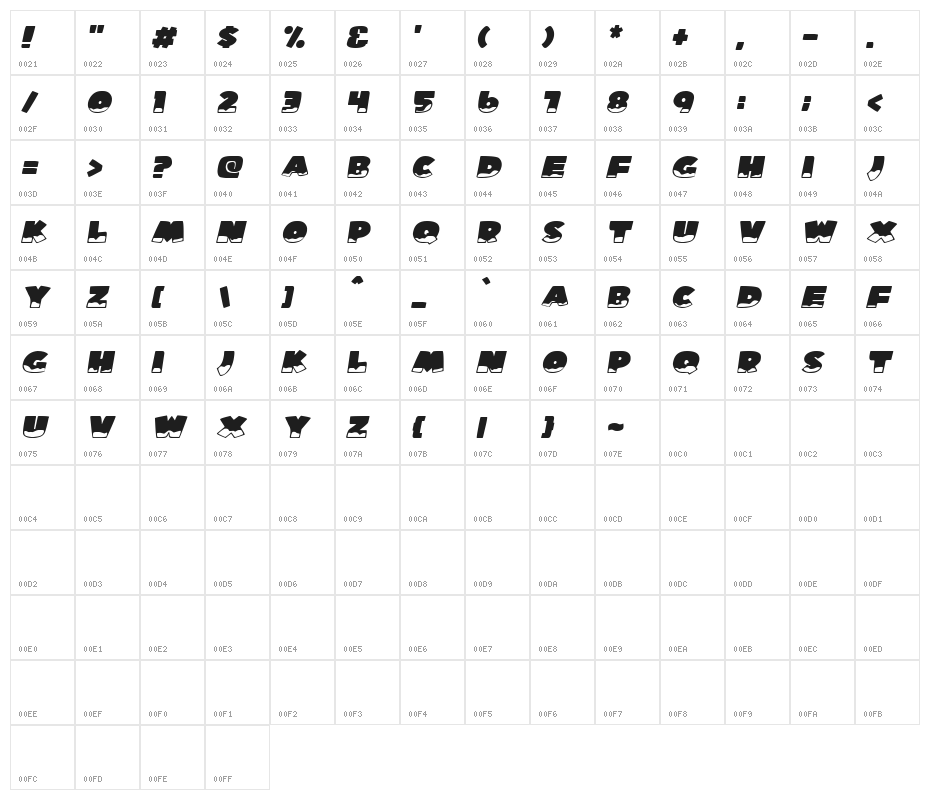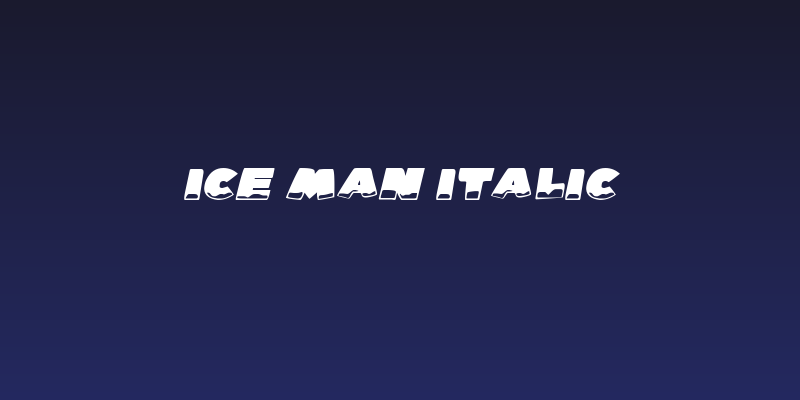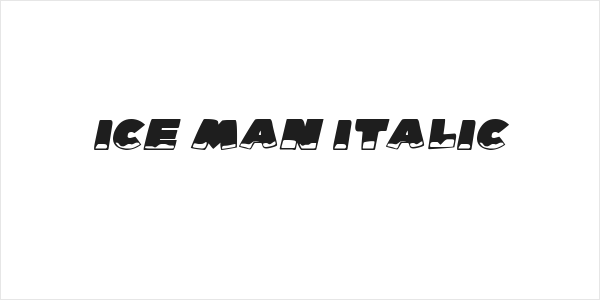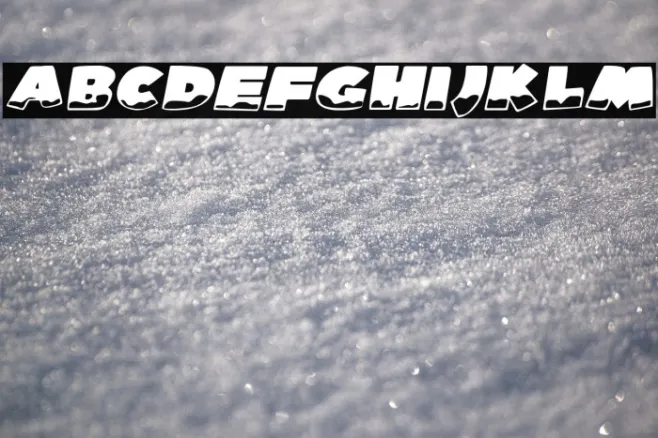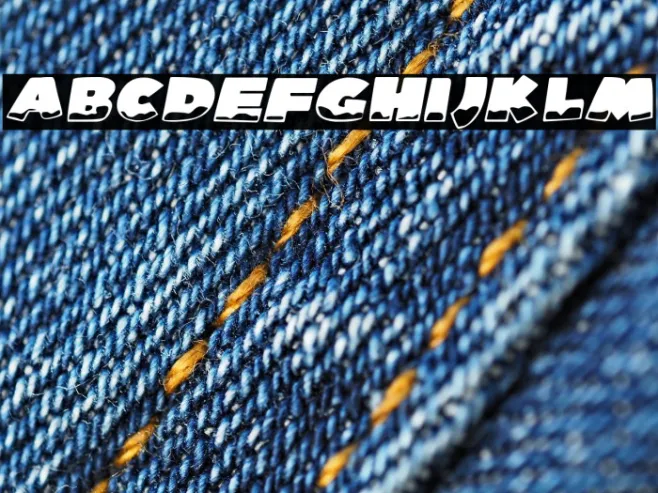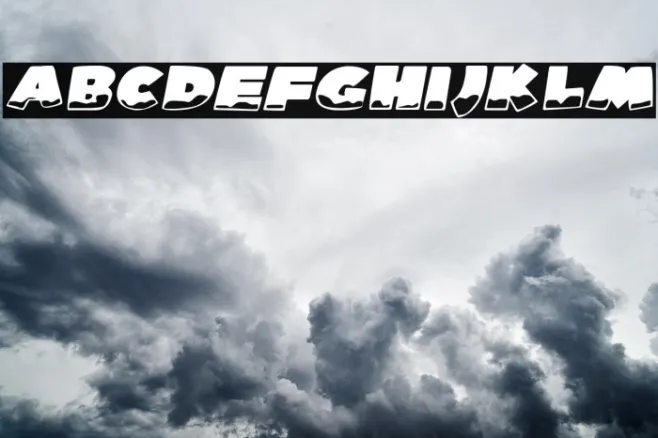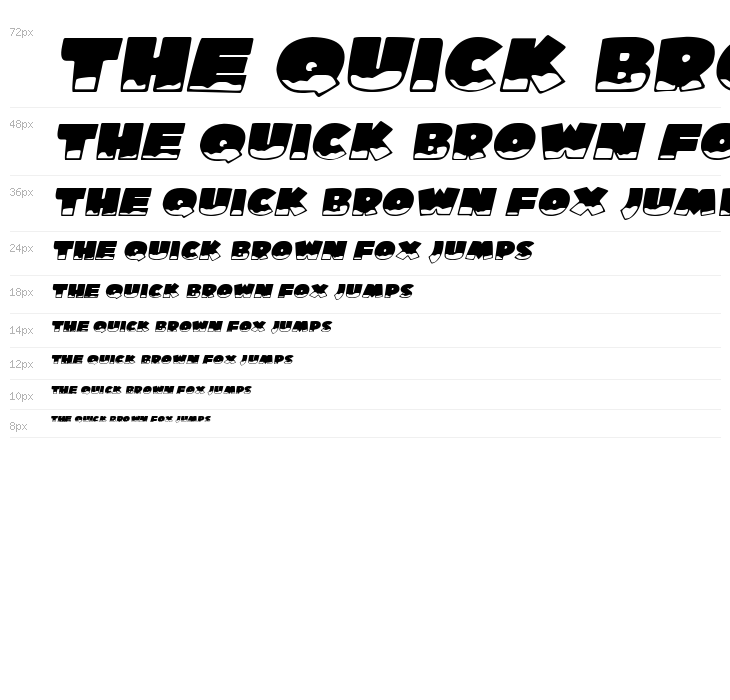
Ice Man Italic Font
Ice Man Italic Description
This font features a bold and playful design with a distinct icy theme. Each character is styled with a thick, rounded form that gives a sense of weight and solidity. The letters have a unique shadow effect that adds depth, creating a three-dimensional appearance. The lowercase and uppercase letters maintain a consistent style, with the uppercase being slightly larger and more pronounced. Numbers and special characters follow the same design principles, ensuring uniformity across all glyphs. This font is ideal for projects that require a fun and eye-catching aesthetic, such as winter-themed events or playful branding.
| Proposed Projects | Winter-themed events, playful branding, children's book covers, festive posters. |